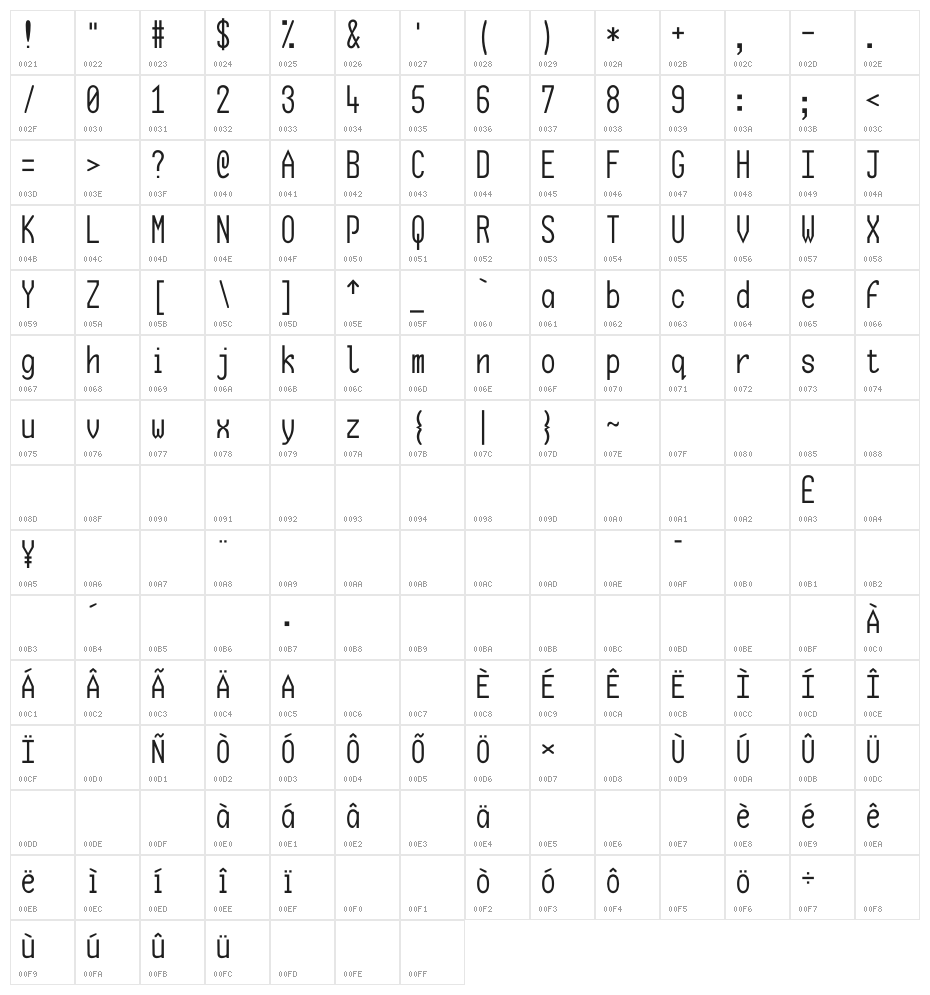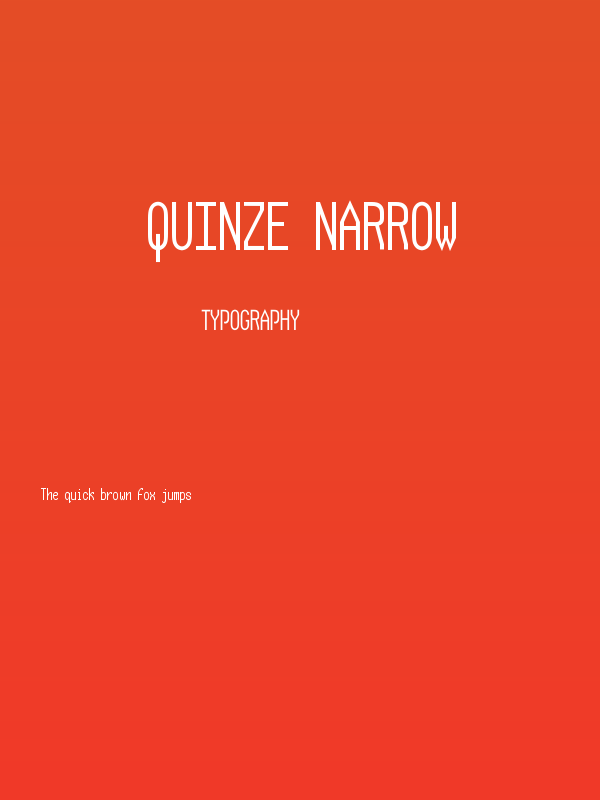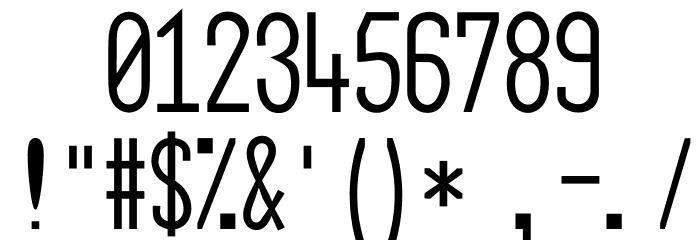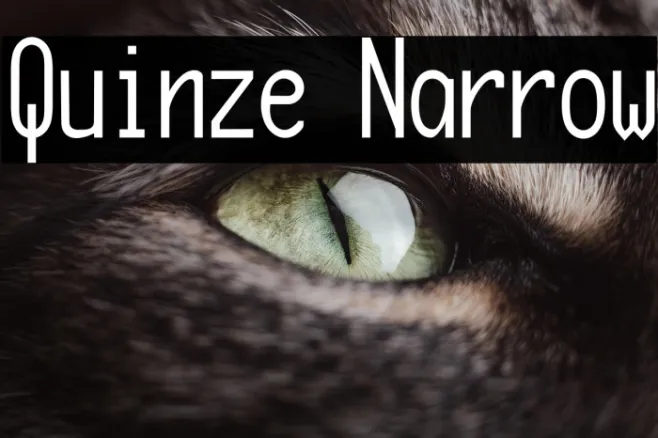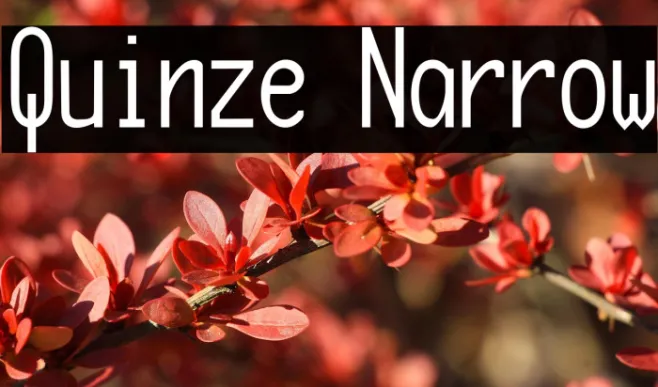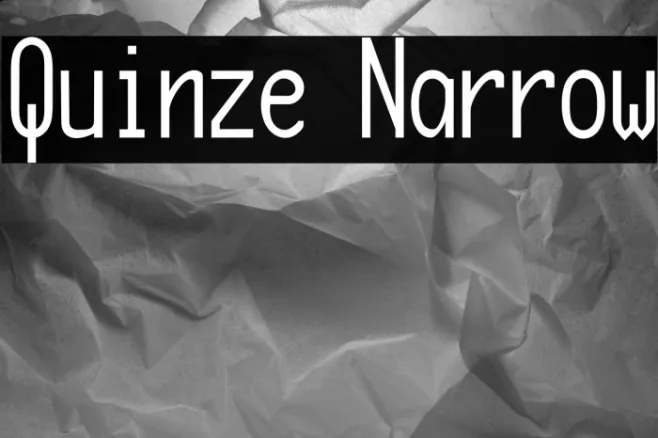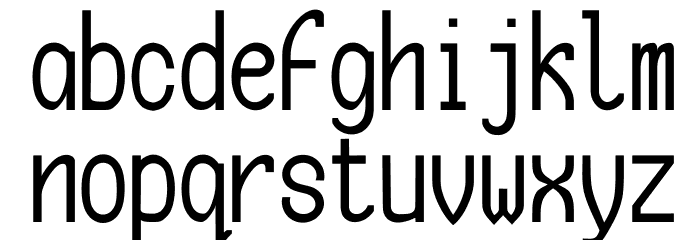
Quinze Narrow Font
Quinze Narrow Description
This font features a narrow and tall design, characterized by its clean and geometric lines. The uppercase letters are uniform in height, while the lowercase letters maintain a consistent style with slight variations in curvature. The numerals are distinct and easy to read, matching the overall aesthetic of the alphabet. Special characters are well-integrated, maintaining the font's sleek and modern appearance. The font's narrow width makes it suitable for space-constrained designs, while its clarity ensures readability across various applications.
| Use Case | Headlines, Logos, Digital Interfaces |
| Proposed Projects | Ideal for modern branding, editorial design, and digital interfaces where space is limited. |